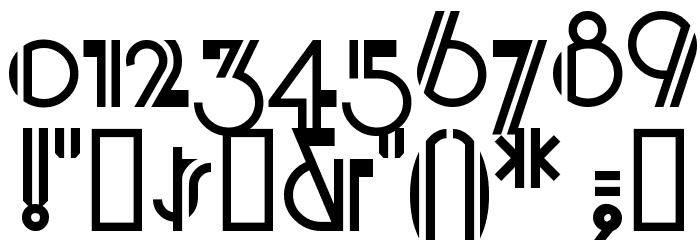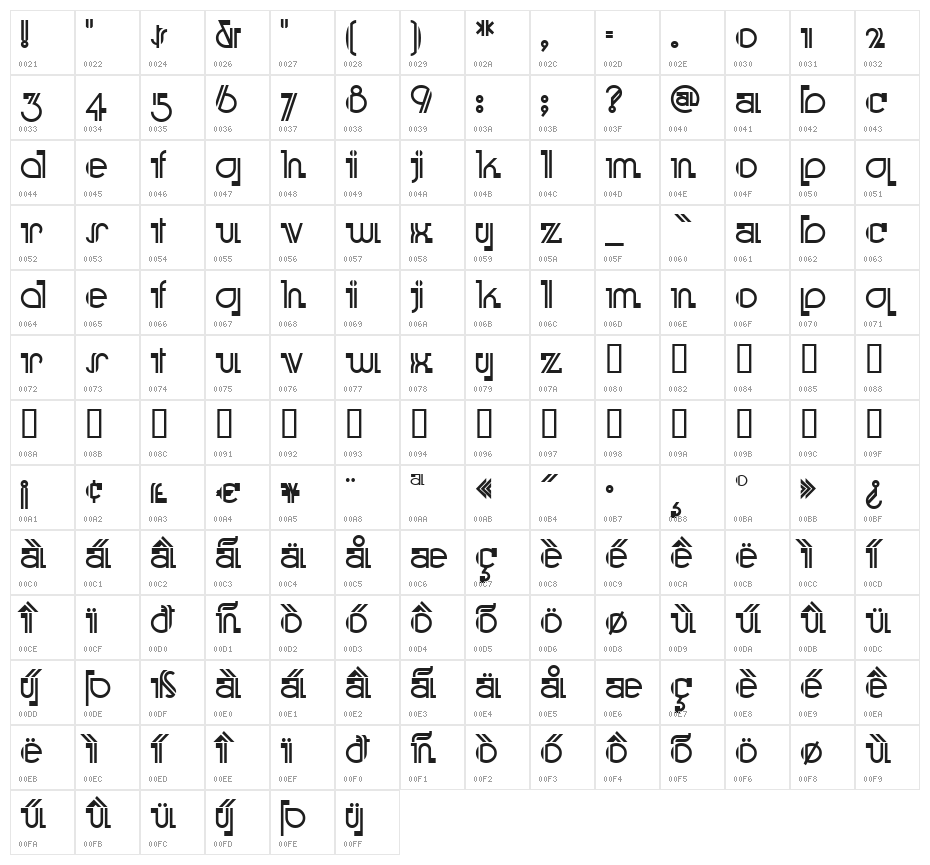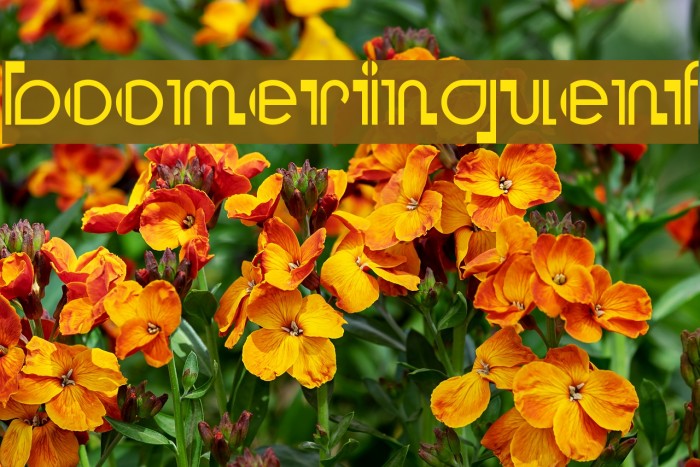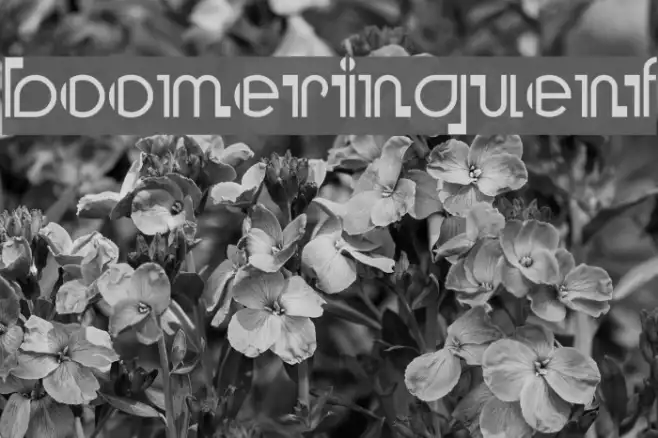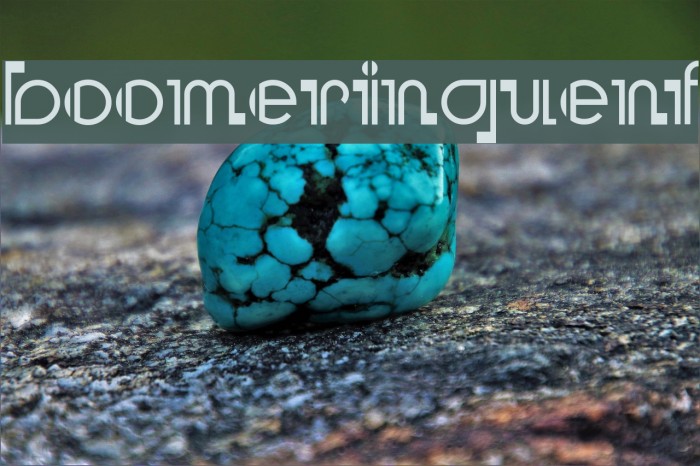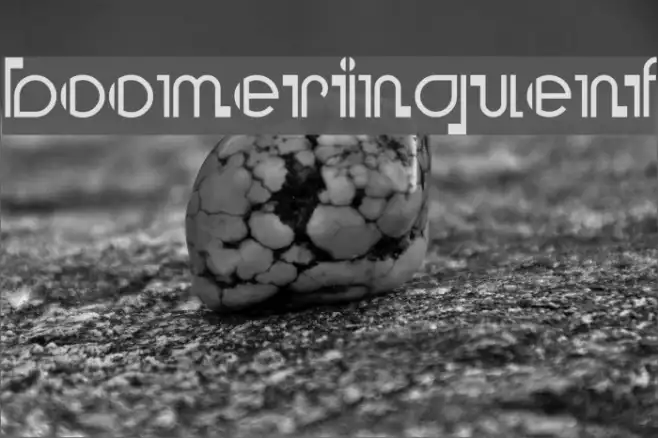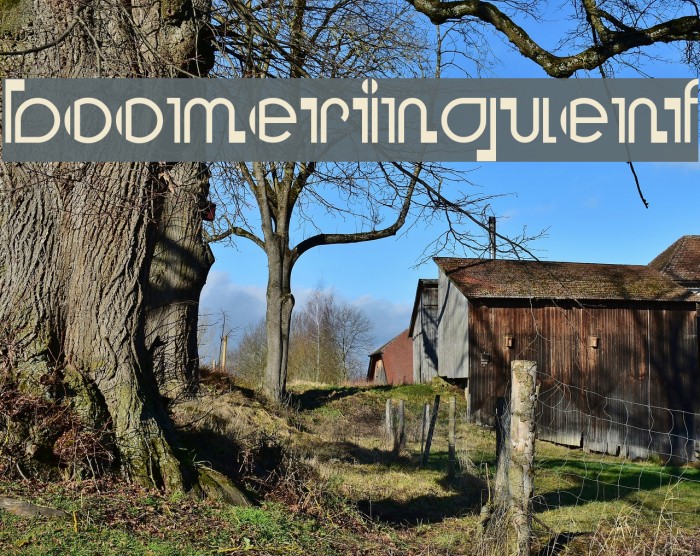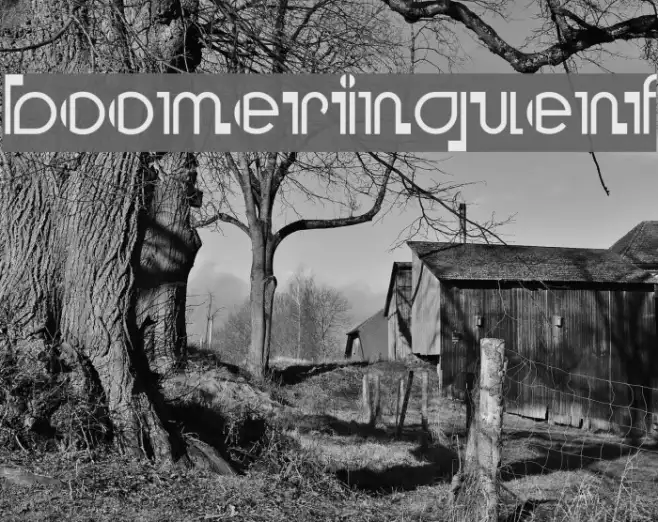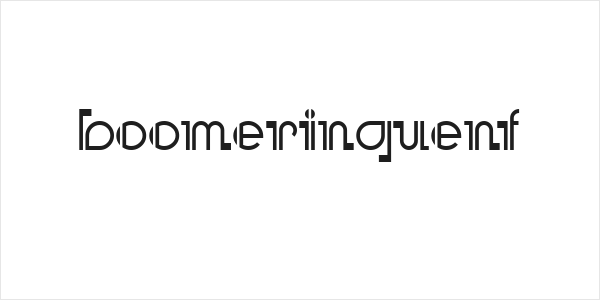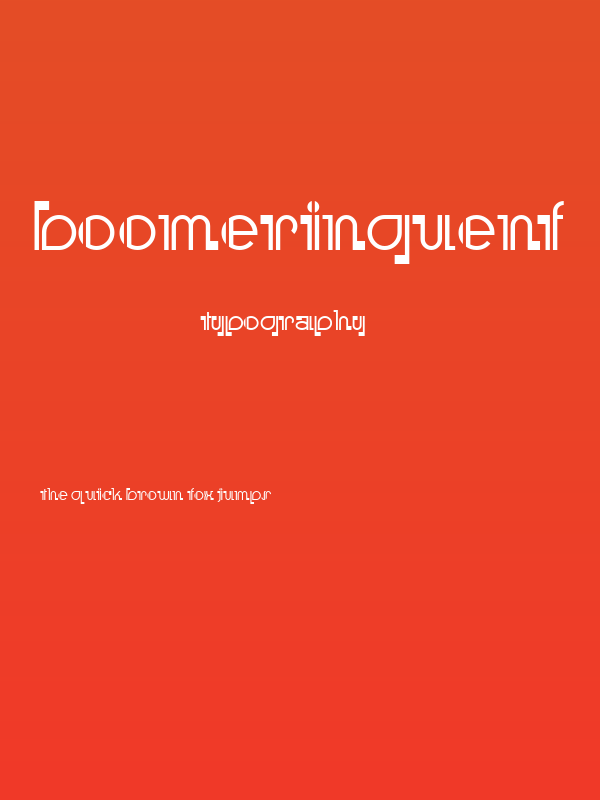
BooMeringueNF Font
BooMeringueNF Description
This font features a unique and bold design with a geometric and modern aesthetic. The characters are constructed with a combination of sharp angles and smooth curves, creating a striking visual contrast. The uppercase and lowercase letters maintain a consistent style, with some characters incorporating unexpected elements, such as extended serifs or asymmetrical shapes. The numbers and special characters follow the same design principles, adding to the font's cohesive appearance. This font's distinct style makes it suitable for creative and eye-catching designs.
| Proposed Projects | Ideal for branding, poster design, album covers, and any project requiring a bold, modern aesthetic. |